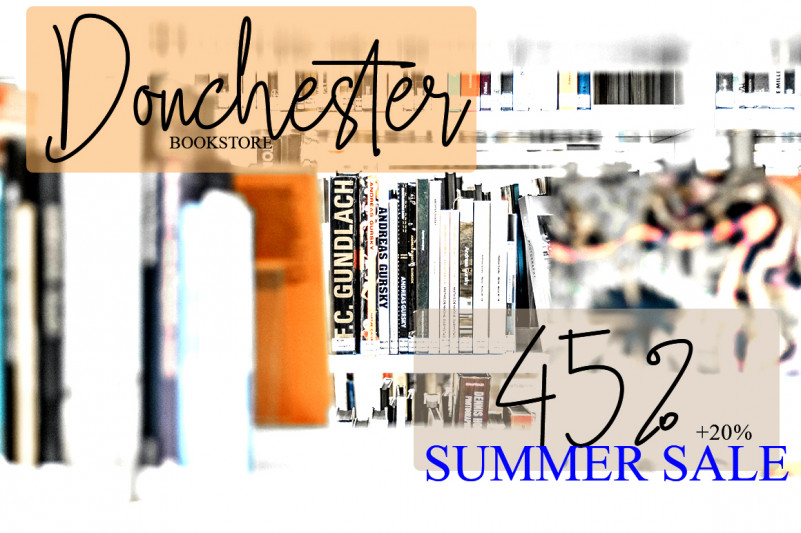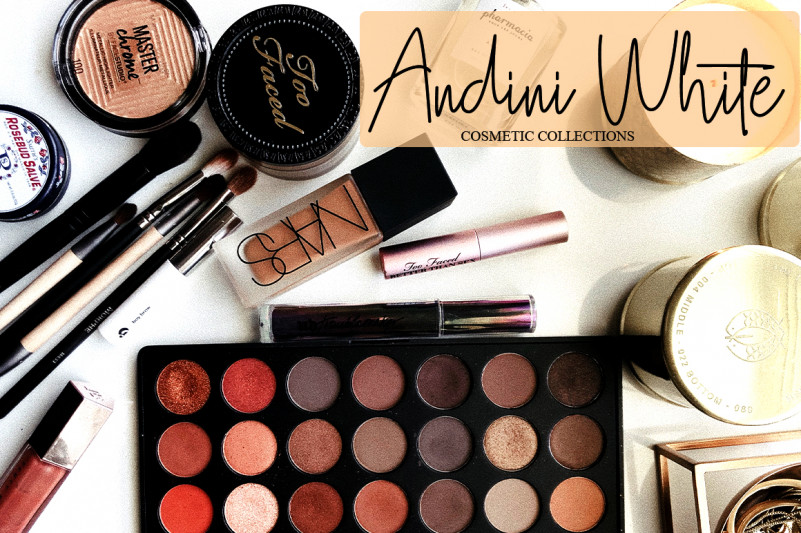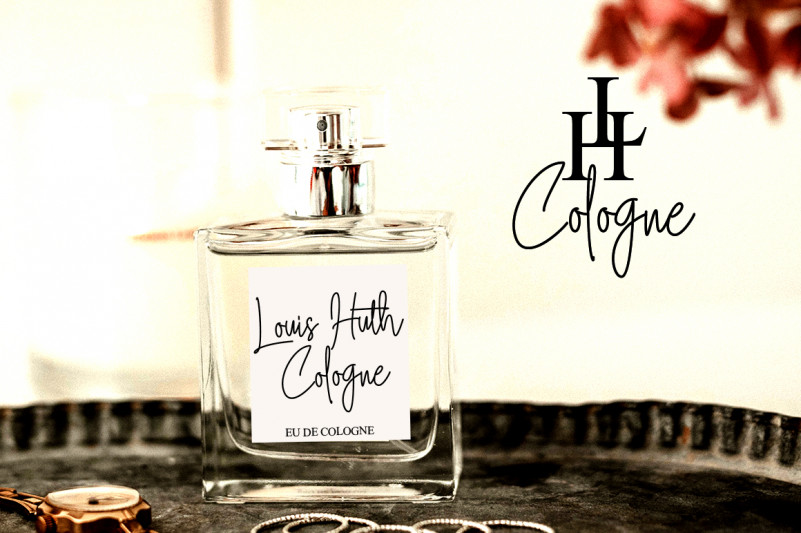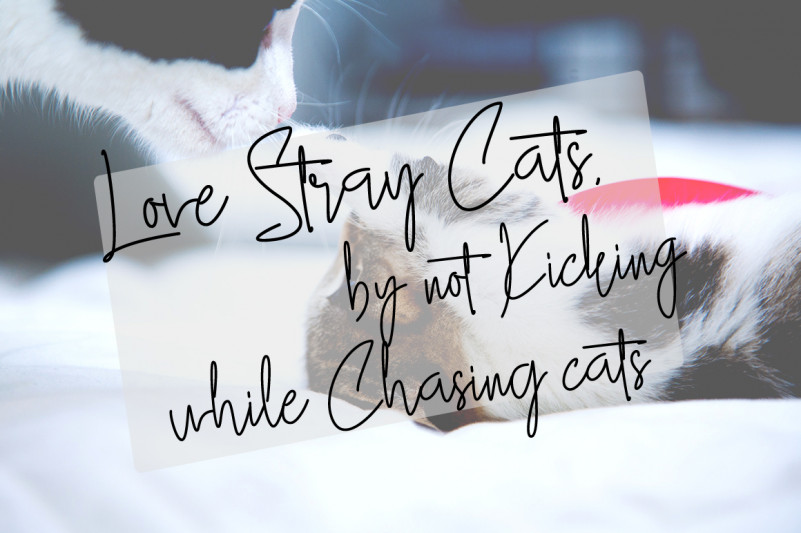
Gllibfith Handwritting Font
Gllibfith Handwritting Font born from handwritting style fonts. Versatile for design poster, logo, branding, label, quote, headline profil, banner, t-shirt design, packaging, magazine, brochure, watermark and many more your amazing work with this fonts.